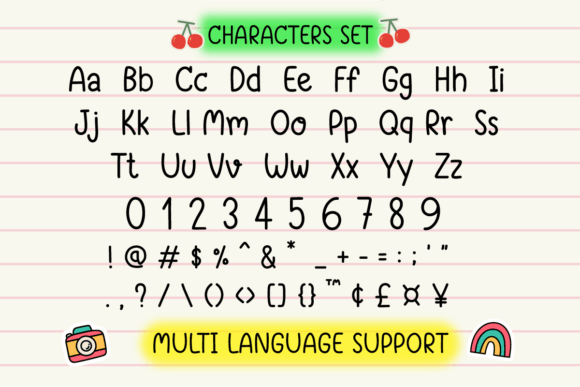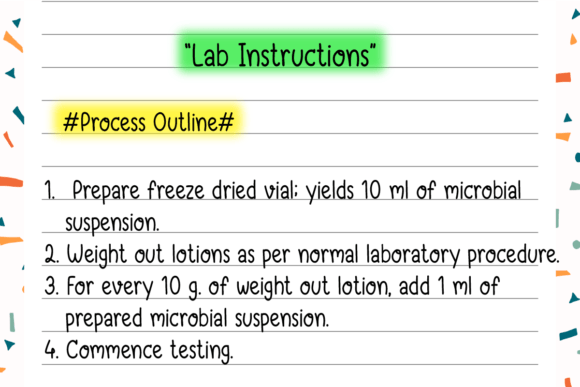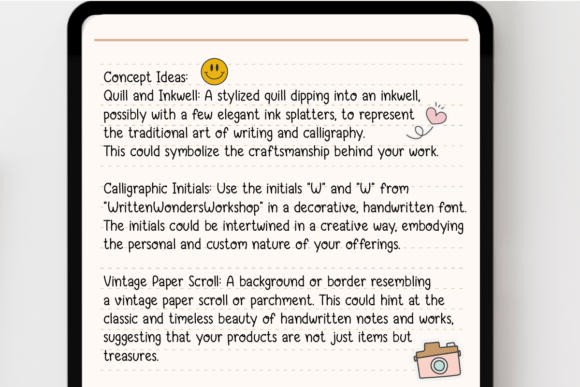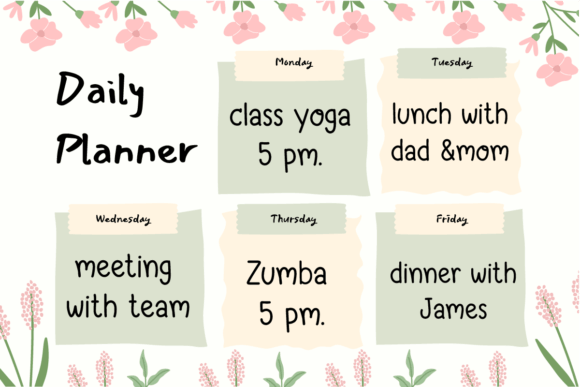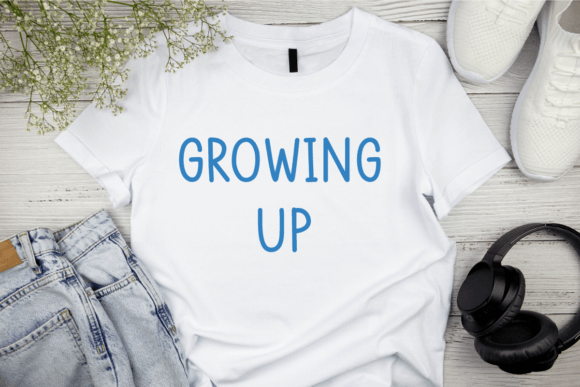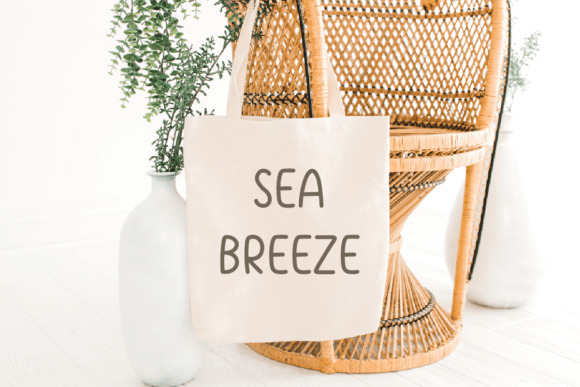
Adding Personality to Your Projects: The Joy of Growing Up Font
We’ve all been there – scribbling down ideas, brainstorming concepts, and sketching out rough drafts. It’s in these moments of creative chaos that we often stumble upon something special. For designers and creatives, a font can be just the thing to elevate our projects and bring them to life. And that’s exactly what Growing Up Font does – it adds a touch of joy and fun to your digital notes, digital planners, note-taking, and creative projects!
Designed in a cute and casual handwritten style, Growing Up Font is perfect for adding a personal touch to your work. Whether you’re working on a digital project or simply jotting down reminders, this font is sure to bring a smile to your face. As a designer, you know the value of a well-chosen font in setting the tone for your project. Growing Up Font is a valuable addition to any designer’s toolkit, offering a unique and playful way to express your creativity.
Key Features of “Growing Up Font”
- Font Family: A sans-serif font designed to evoke a sense of nostalgia and childhood wonder.
- Unique Characteristics: Features a distinctive, hand-drawn feel with subtle imperfections and texture, giving it a unique and playful personality.
Designer Review: Growing Up Font
Overall, I think Growing Up Font is a delightful addition to any designer’s toolkit. Here’s what I love about it: ✨
- Its playful, whimsical feel is perfect for kids’ content, educational materials, or even a family-friendly website.
- The font’s versatility shines through in its various weights, from Light to Bold, which makes it suitable for a wide range of applications.
- Its OpenType features allow for some really fun and creative typographic effects, like ligatures and swashes.
- The font’s clean lines and rounded edges make it easy on the eyes, even for extended reading sessions.
However, there are a few limitations to keep in mind: ⚠️
- The font’s expressiveness may not be suitable for more formal or corporate projects.
- The weight of the font can make it look a bit flat in certain situations, so be sure to pair it with the right imagery and graphics.
- Some users may find the font’s playful feel too childish for certain contexts.
Overall, I think Growing Up Font is a great choice for designers looking to add some personality to their projects. Just be mindful of its limitations and use it in the right situations.
“Growing Up Font” is perfect for:
- Children’s books and educational materials
- Wedding invitations and party decorations
- Any project that requires a playful and whimsical touch
For optimal results, use “Growing Up Font” in combination with bold and colorful graphics.
Alternatives to Growing Up Font
Oswald is a sans-serif font designed by Vernon Adams. It is a versatile font suitable for various design projects, including headings, body text, and logos. Oswald has a more geometric and modern look compared to Growing Up Font, which is more rounded and playful. Oswald is ideal for designs that require a strong, bold, and contemporary feel.
Playfair Display is an elegant, high-end serif font designed by Claus Eggers Sørensen. It is perfect for designs that require a touch of sophistication, luxury, and refinement. While Growing Up Font is more playful and casual, Playfair Display is more formal and sophisticated. Playfair Display is suitable for designs such as wedding invitations, luxury branding, and high-end marketing materials.
Lato is a sans-serif font designed by Łukasz Dziedzic. It is a clean, modern, and highly legible font suitable for various design projects, including body text, headings, and UI elements. Lato has a more minimalist and sleek look compared to Growing Up Font, which is more playful and expressive. Lato is ideal for designs that require a clean, simple, and modern aesthetic.